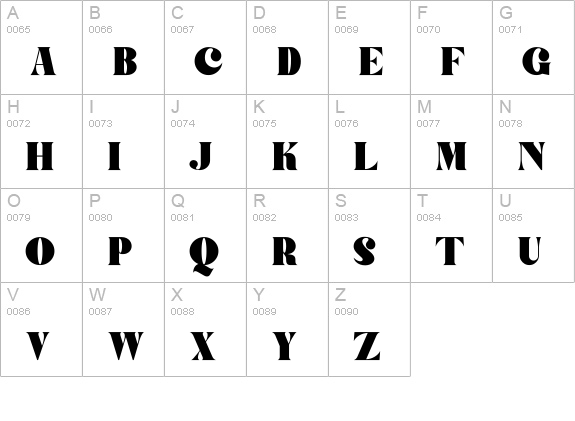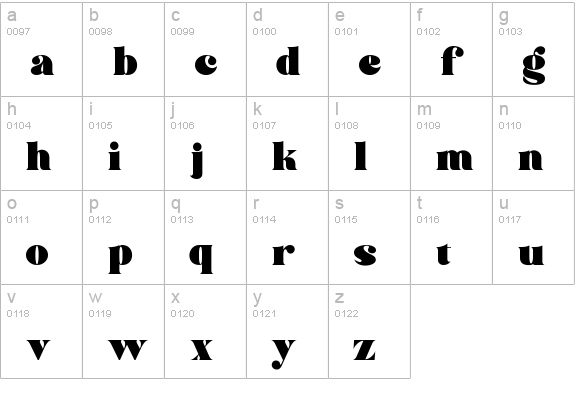
Croc - Typeface Bold Serif is a strong, high-contrast variant in the Croc typeface family \xE2\x80\x94 well suited to headlines, attention-grabbing titles, and strong calls-to-action.
Introducing Croc - a bold serif font that exudes power, elegance, and sophistication. With its strong and distinctive serifs, Croc is perfect for creating impactful headlines, logos, branding materials, and more. This versatile typeface strikes the perfect balance between modernity and classic design, making it suitable for a wide range of projects.